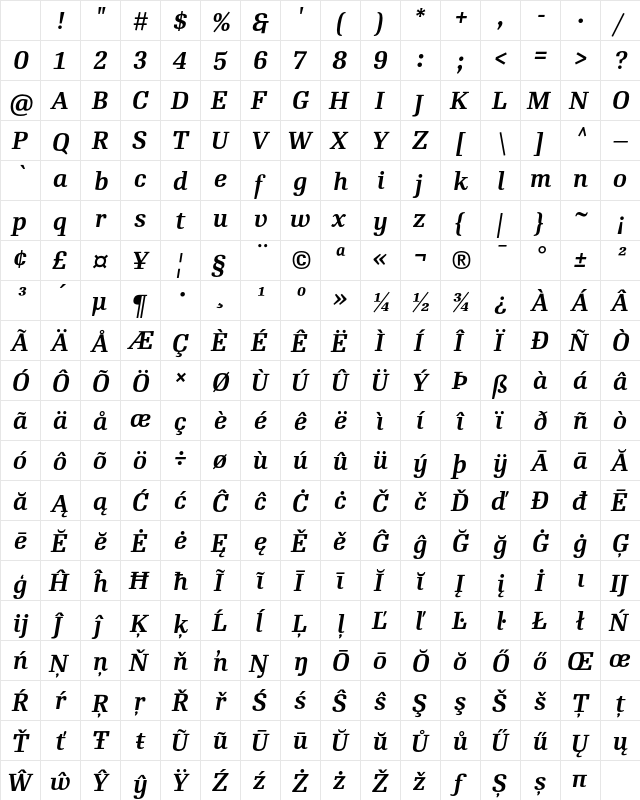
Complete RePublic Book Bold Italic glyph index. Displaying only characters natively supported by RePublic Book Bold Italic font.
RePublic Book is a composed and adaptable typeface that performs quietly and consistently across a wide range of design contexts. The slanted form adds forward momentum and visual energy. Its bold stroke weight gives it real presence on the page.